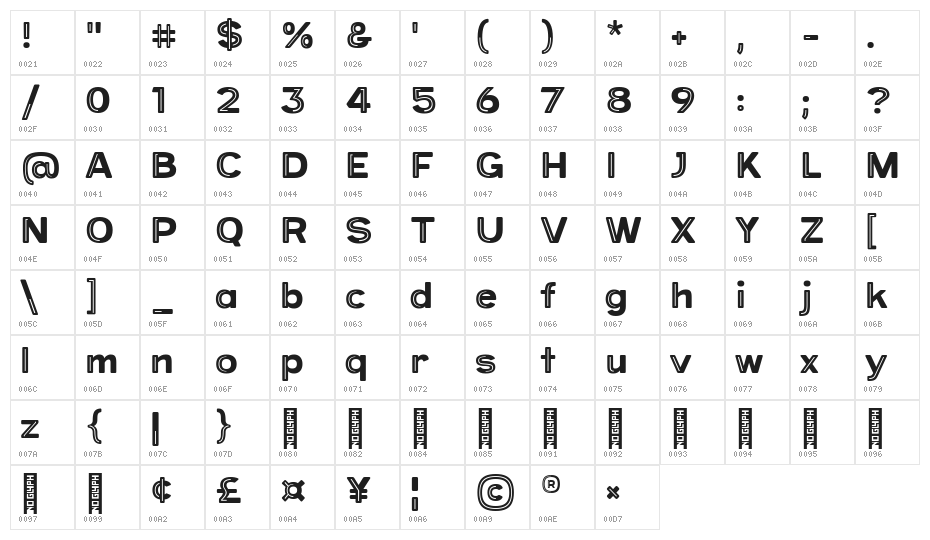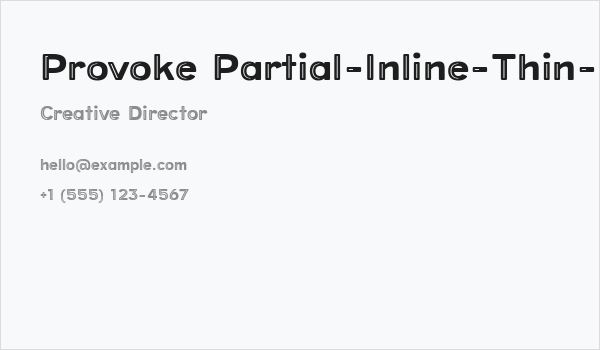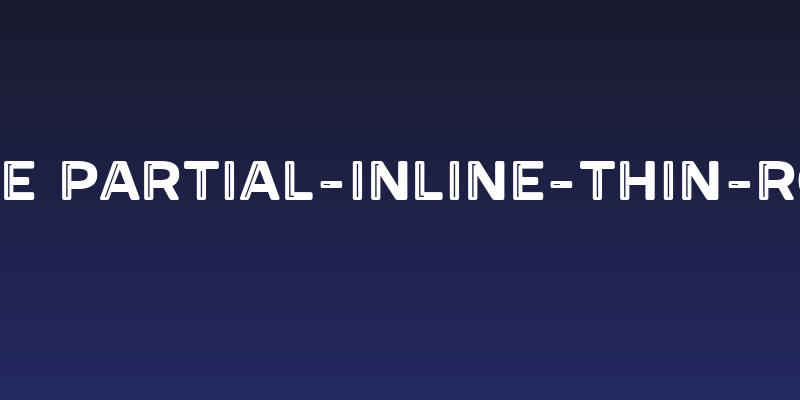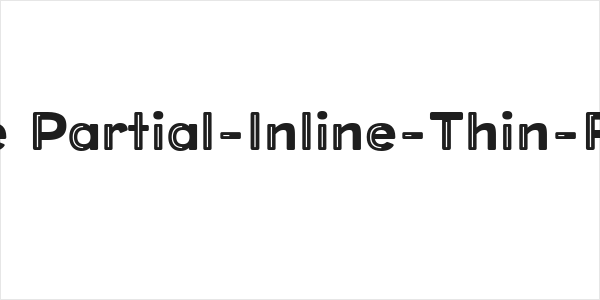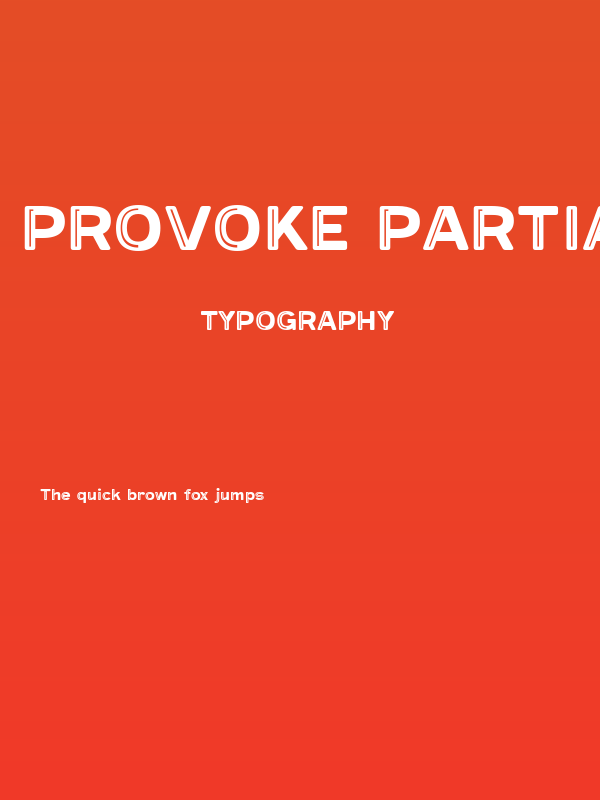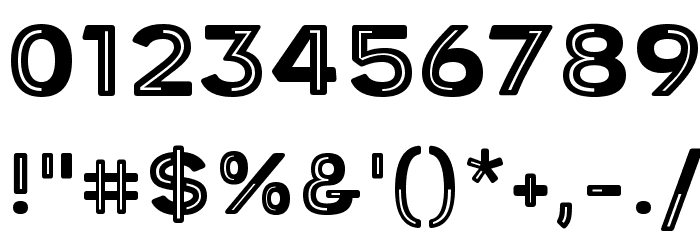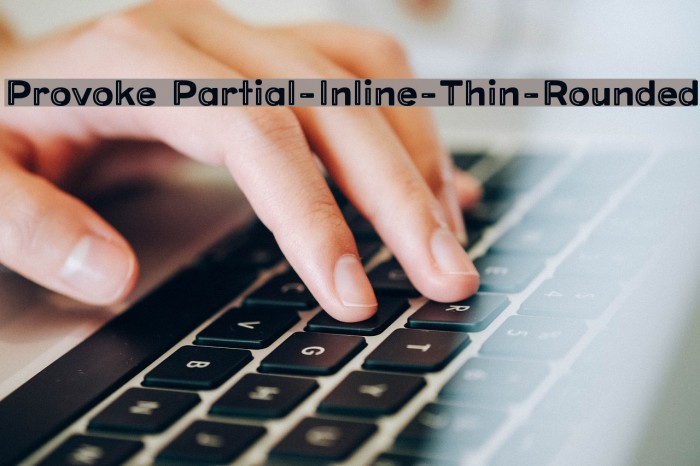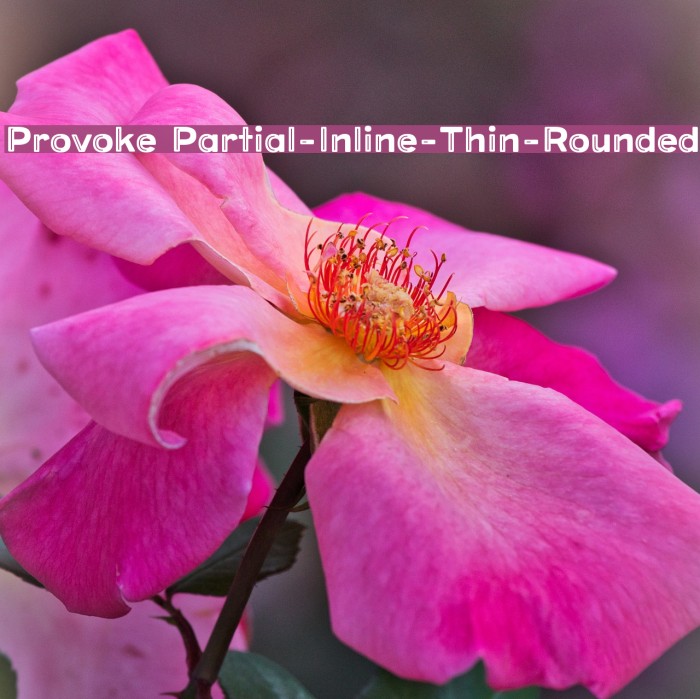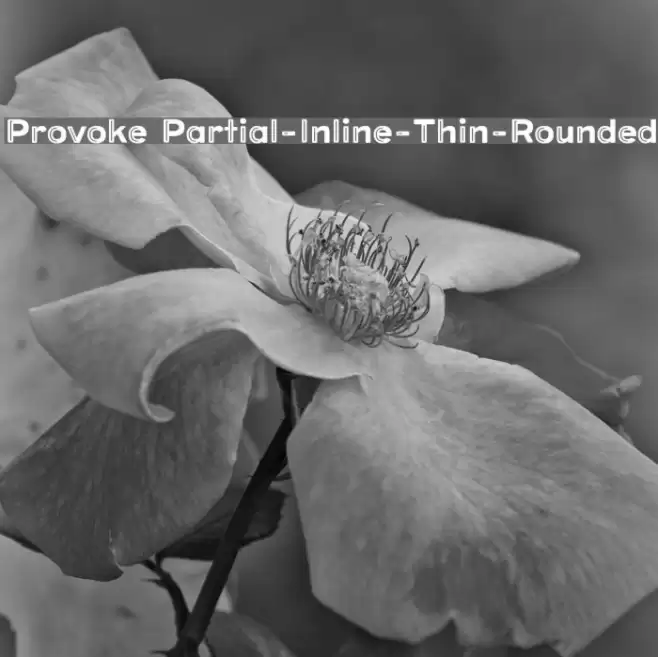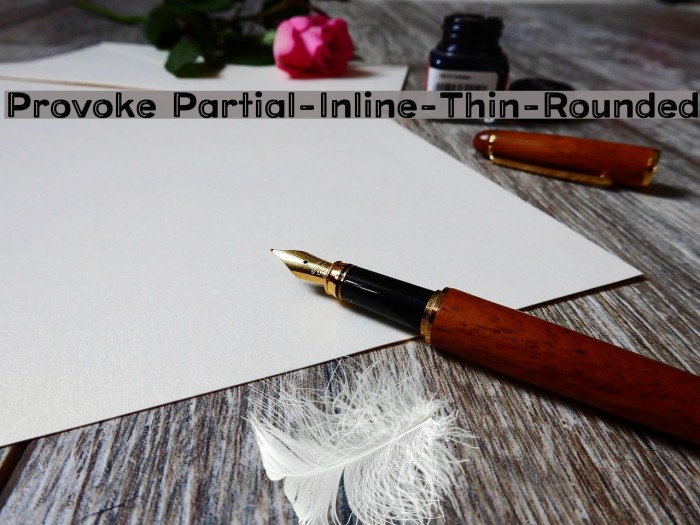
Provoke Partial-Inline-Thin-Rounded Font
Provoke Partial-Inline-Thin-Rounded Description
This font features a modern and sleek design with rounded edges and a partial inline style that adds a unique touch to each character. The uppercase and lowercase letters maintain a consistent thickness, providing a balanced and harmonious look. The numerals are bold and easily readable, making them suitable for various applications. Special characters are well-defined, complementing the overall aesthetic. The font's rounded and thin characteristics give it a friendly and approachable feel, while the inline detail adds a layer of sophistication.
| Use Case | Headlines, Logos, Digital Media |
| Proposed Projects | Ideal for branding, advertising, and digital media projects where a modern and approachable aesthetic is desired. |